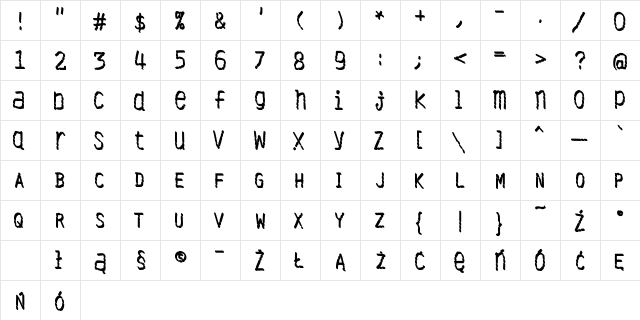
Antibiotic Regular
| Foundry | High-Logic |
| Designer | High-Logic - Erwin Denissen 1999 |
Design Context for Antibiotic Typeface
Antibiotic is a composed and adaptable typeface that performs quietly and consistently across a wide range of design contexts.